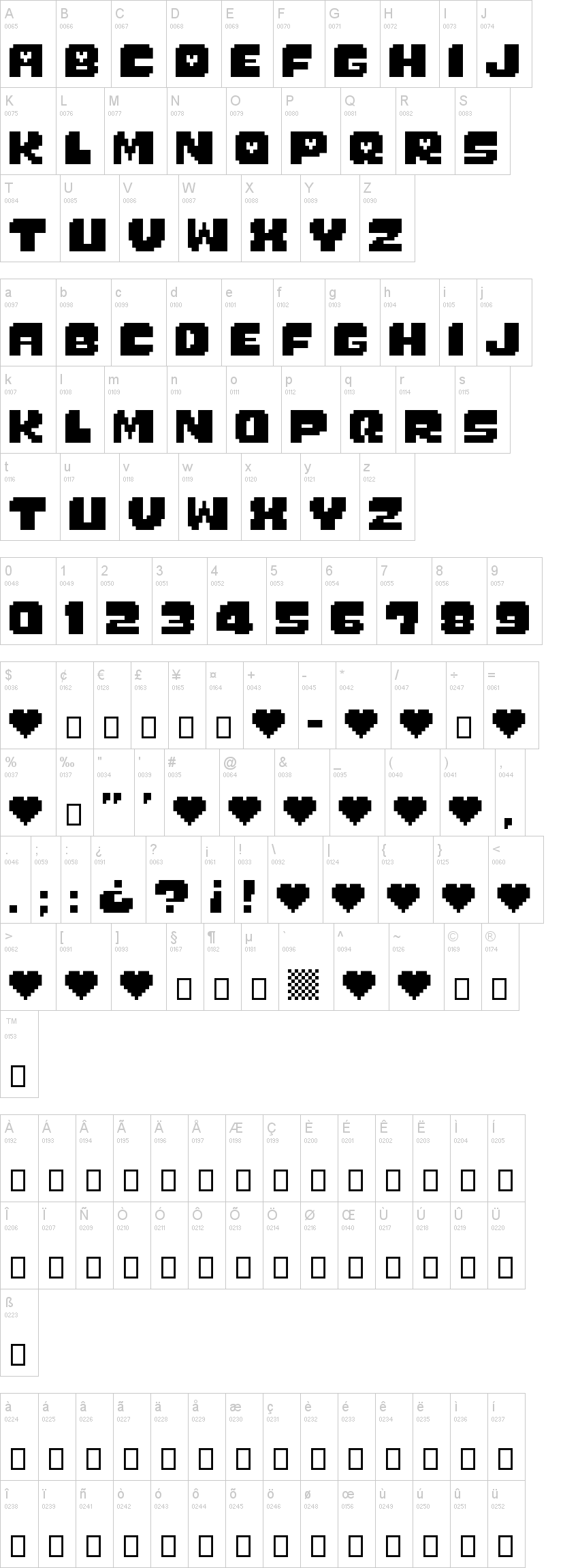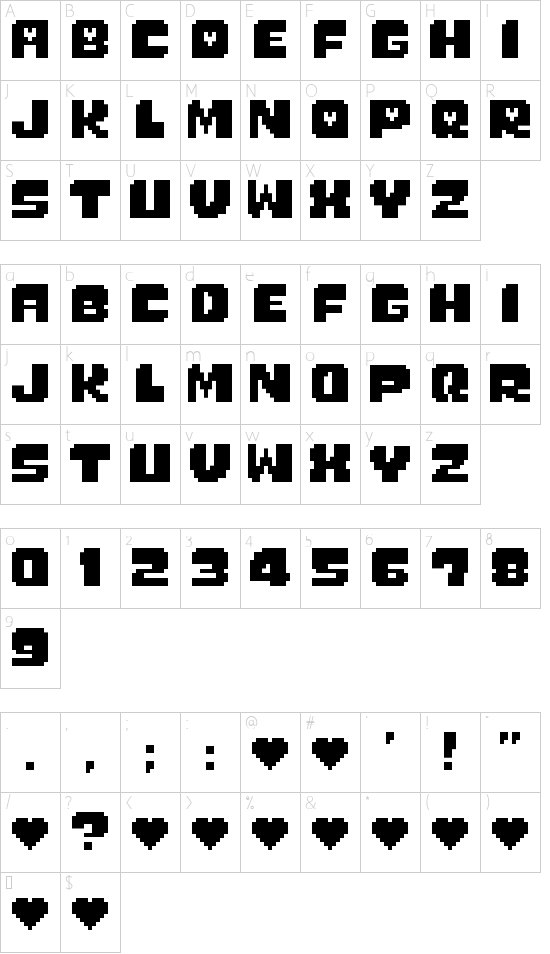
Monster Friends Font
Monster Friends Font - Every font is free to download! Web looking for monster fonts? It was designed and published by harry wakamatsu from. Click to find the best 149 free fonts in the monster style. Browse by alphabetical listing, by style, by author or by popularity. Archive of freely downloadable fonts. Web monster friend font is a free modern bitmap typeface.
Web looking for monster fonts? It was designed and published by harry wakamatsu from. Every font is free to download! Web monster friend font is a free modern bitmap typeface. Archive of freely downloadable fonts. Click to find the best 149 free fonts in the monster style. Browse by alphabetical listing, by style, by author or by popularity.
Archive of freely downloadable fonts. Web looking for monster fonts? Web monster friend font is a free modern bitmap typeface. Every font is free to download! Click to find the best 149 free fonts in the monster style. It was designed and published by harry wakamatsu from. Browse by alphabetical listing, by style, by author or by popularity.
Web looking for monster fonts? Web monster friend font is a free modern bitmap typeface. Click to find the best 149 free fonts in the monster style. It was designed and published by harry wakamatsu from. Archive of freely downloadable fonts.
Click to find the best 149 free fonts in the monster style. It was designed and published by harry wakamatsu from. Archive of freely downloadable fonts. Browse by alphabetical listing, by style, by author or by popularity. Every font is free to download!
It was designed and published by harry wakamatsu from. Web looking for monster fonts? Archive of freely downloadable fonts. Click to find the best 149 free fonts in the monster style. Every font is free to download!
Web looking for monster fonts? Browse by alphabetical listing, by style, by author or by popularity. Click to find the best 149 free fonts in the monster style. Every font is free to download! Archive of freely downloadable fonts.
Browse by alphabetical listing, by style, by author or by popularity. Web monster friend font is a free modern bitmap typeface. It was designed and published by harry wakamatsu from. Web looking for monster fonts? Every font is free to download!
Web looking for monster fonts? Click to find the best 149 free fonts in the monster style. Archive of freely downloadable fonts. Every font is free to download! It was designed and published by harry wakamatsu from.
It was designed and published by harry wakamatsu from. Click to find the best 149 free fonts in the monster style. Web looking for monster fonts? Browse by alphabetical listing, by style, by author or by popularity. Archive of freely downloadable fonts.
Browse by alphabetical listing, by style, by author or by popularity. Click to find the best 149 free fonts in the monster style. Every font is free to download! It was designed and published by harry wakamatsu from. Archive of freely downloadable fonts.
Every font is free to download! Browse by alphabetical listing, by style, by author or by popularity. It was designed and published by harry wakamatsu from. Web monster friend font is a free modern bitmap typeface. Click to find the best 149 free fonts in the monster style.
Browse by alphabetical listing, by style, by author or by popularity. Click to find the best 149 free fonts in the monster style. It was designed and published by harry wakamatsu from. Web monster friend font is a free modern bitmap typeface. Web looking for monster fonts?
Click to find the best 149 free fonts in the monster style. Archive of freely downloadable fonts. Web monster friend font is a free modern bitmap typeface. Browse by alphabetical listing, by style, by author or by popularity.
It was designed and published by harry wakamatsu from.